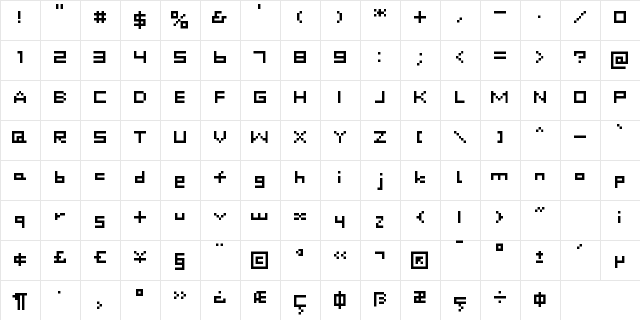
DustDot Regular
Design Context for DustDot Typeface
DustDot celebrates the constraints of early digital type, turning pixel geometry into a distinctive and immediately recognisable style.
A natural choice for retro game titles, chiptune music branding, 8-bit UI, and digital nostalgia projects.
Pro Tip: Pair DustDot with flat colour palettes and simple geometric UI elements to reinforce its digital aesthetic.